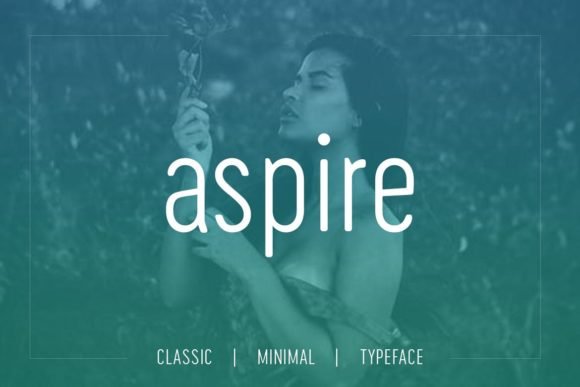
Introduction to Aspire Sans Font
Aspire Sans is a classic and Minimal Sans Serif typeface, Aspire Sans can keep the minimalism at its level best and is a Perfect choice for Creative and Classic Typography Designs.
Key Features of Aspire Sans Font